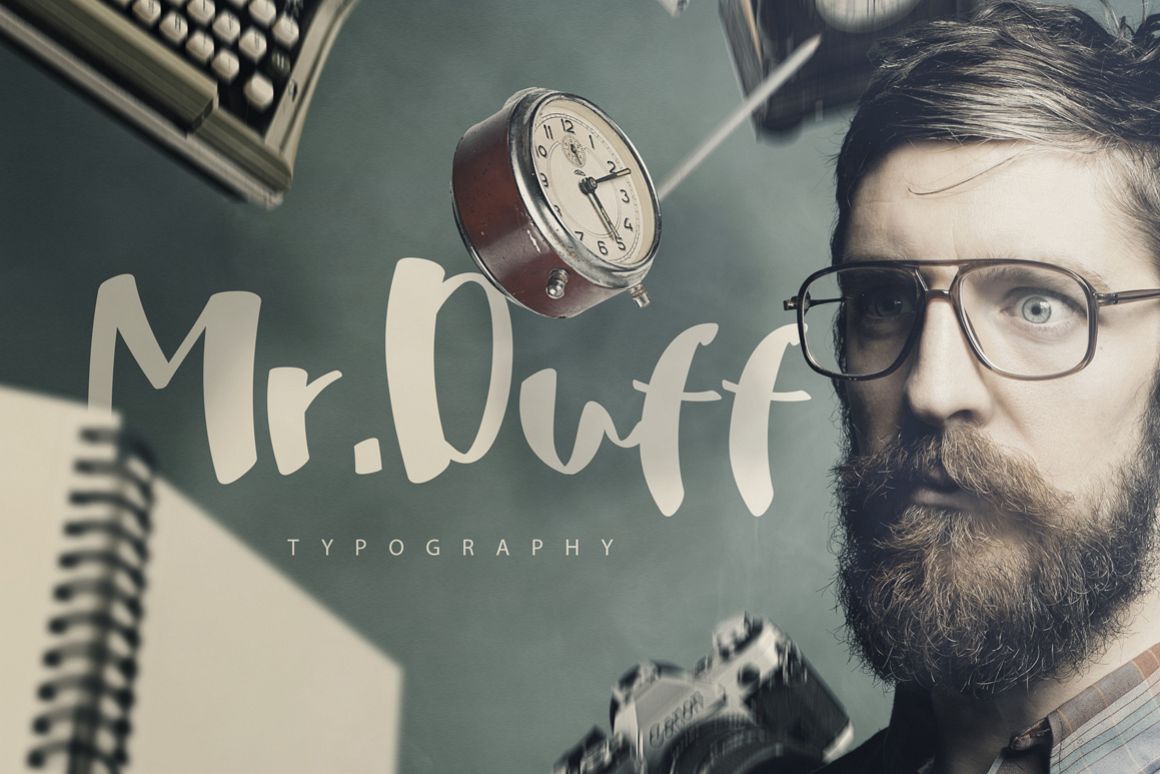
Mr. Duff Typeface
Mr. Duff is a playful and smooth script font.
The smooth digitally created letters have the look and feel like they are painted with a thick brush. The lines are smoothed so the font feels very slick and would look great in many types of projects.